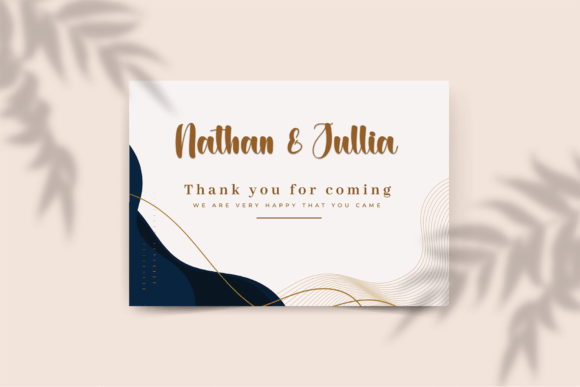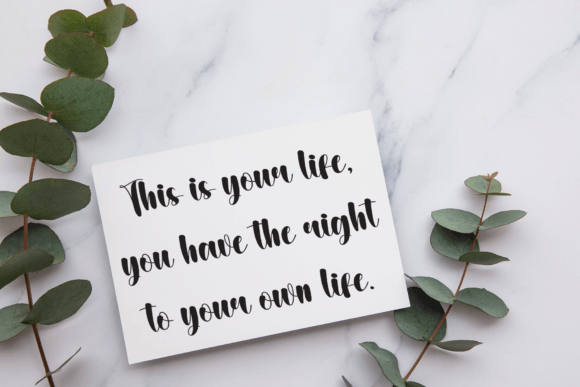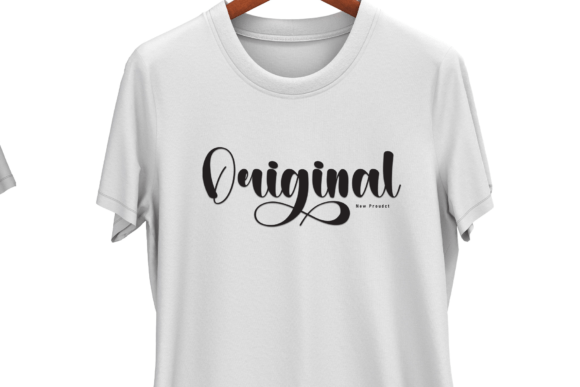
Introduction to Butter Jellyfish Font
Butter Jellyfish is a modern handwritten font that seamlessly combines elegance with a touch of whimsy.
Its fluid, organic strokes, and refined letterforms make it ideal for upscale packaging, branding, and editorial designs Bring a bespoke, artisanal feel to any project with the graceful allure of Butter Jellyfish.
Key Features of Butter Jellyfish Font
Why Choose Butter Jellyfish Font?